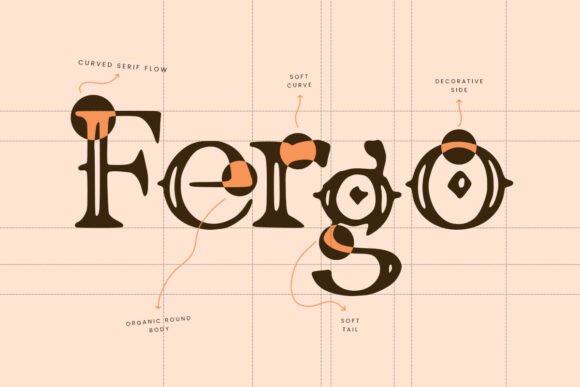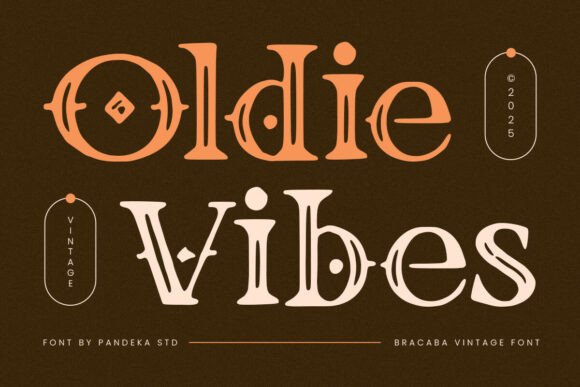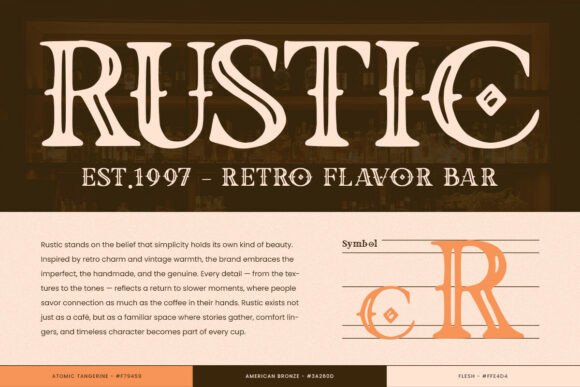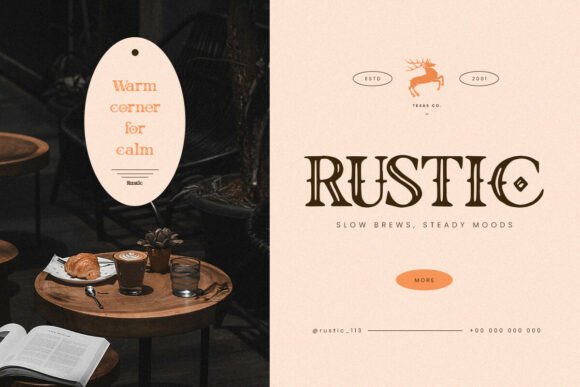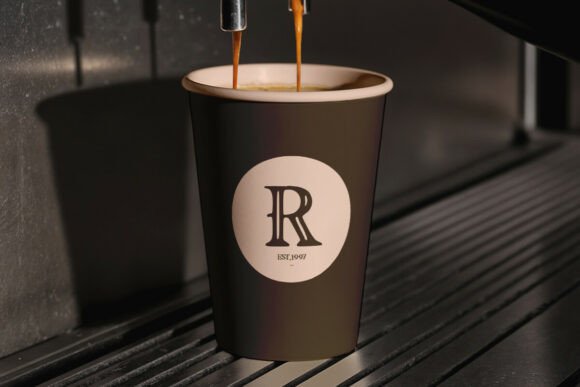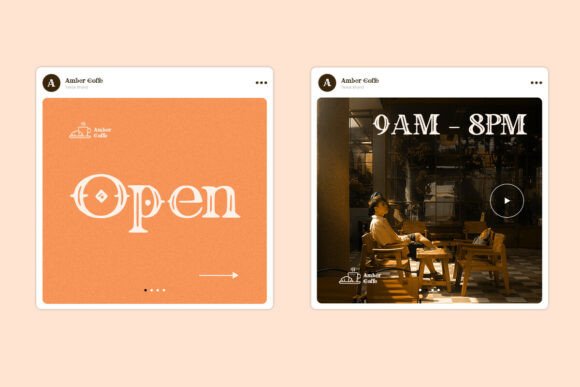
Bracaba Font: Elevate Your Designs with a Touch of Vintage Elegance
In the realm of typography, few fonts manage to capture the essence of vintage charm while maintaining modern readability. Bracaba, a recently designed decorative font, achieves this delicate balance with remarkable finesse. Its unique blend of ornamental curves, bold retro character, and classic serif structure makes it an ideal choice for designers and crafters looking to infuse their projects with a nostalgic flair.
The Distinctive Features of Bracaba Font
Bracaba is characterized by its detailed shapes and subtle decorative touches, which lend every word an authentic old-time charm. This vintage decorative font is designed in a single Regular style, ensuring consistency and elegance across various applications. The classic serif structure provides a sense of tradition and reliability, while the ornamental curves add a decorative edge that sets Bracaba apart from more conventional typefaces.
Ideal Applications for Bracaba Font
Bracaba’s versatility makes it suitable for a wide range of design projects. Whether you’re crafting a café identity, designing menus, creating vintage logos, working on product packaging, editorial layouts, signage, or promotional materials, Bracaba brings a refined decorative edge that can elevate your designs. Its warm heritage look is perfect for projects that require a touch of nostalgia, yet it remains clean, readable, and stylish enough for modern creative endeavors.
Branding with Personality and Nostalgic Flair
In today’s competitive market, branding is more crucial than ever. Bracaba offers a unique opportunity for brands to stand out with a distinctive, vintage-inspired aesthetic. Its bold retro character and ornamental curves can add a layer of personality to any brand’s visual identity, making it more memorable and engaging. Whether you’re a small business owner looking to create a unique brand identity or a seasoned designer aiming to offer something new to your clients, Bracaba is an excellent choice.
Why Choose Bracaba for Your Designs?
There are several reasons why Bracaba stands out as a go-to font for designers and crafters:
- Vintage Charm: Bracaba’s design is deeply rooted in vintage typography, offering a unique nostalgic appeal that can set your designs apart.
- Versatility: Its classic serif structure and decorative touches make it suitable for a wide range of projects, from traditional to modern.
- Readability: Despite its decorative nature, Bracaba remains clean and readable, ensuring that your message is conveyed effectively.
- Elegance: Bracaba brings a level of sophistication and elegance to any design, making it perfect for high-end branding and promotional materials.
Tips for Using Bracaba Effectively in Your Designs
To maximize the impact of Bracaba in your designs, consider the following tips:
- Pair with Simpler Fonts: When using Bracaba for headings or titles, pair it with a simpler, modern font for body text to create visual contrast.
- Experiment with Colors: Bracaba’s vintage charm can be further emphasized with the right color palette. Earth tones, gold, and classic black and white combinations work well.
- Play with Sizes: Don’t be afraid to experiment with different font sizes to create a hierarchy of information and add emphasis where needed.
Bracaba font offers a unique blend of vintage charm and modern readability, making it an excellent choice for designers and crafters looking to add a touch of nostalgia to their projects. Its detailed shapes, classic serif structure, and subtle decorative touches ensure that every word carries an authentic old-time charm. Whether you’re working on branding, menus, logos, packaging, or promotional materials, Bracaba brings a refined decorative edge that can elevate your designs. With its warm heritage look and versatility, Bracaba is poised to become a favorite among designers seeking to create memorable and engaging visual identities.